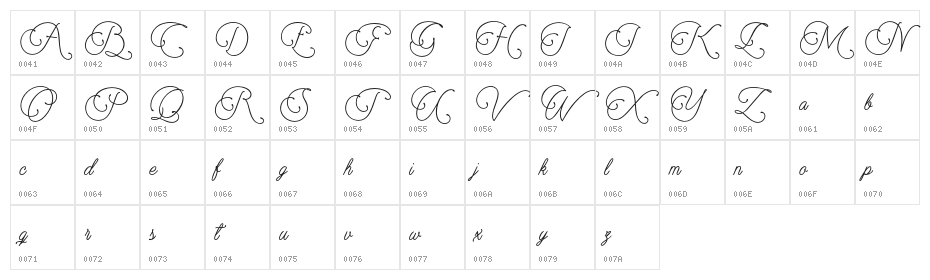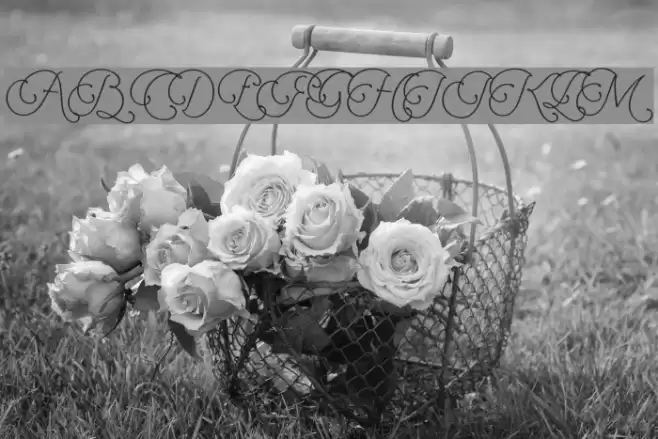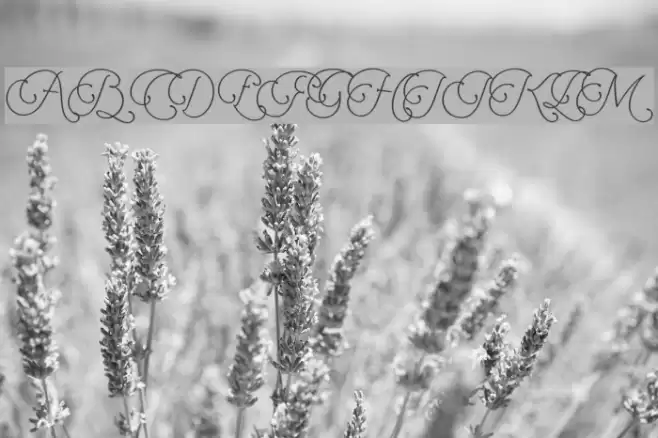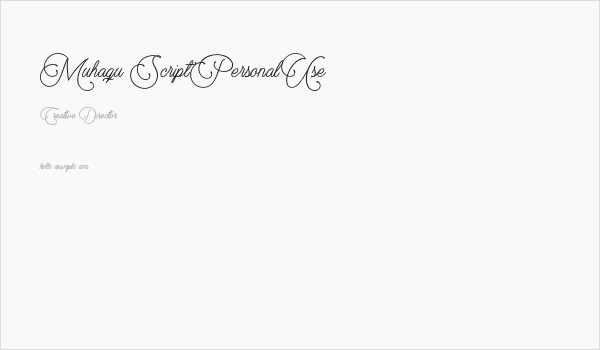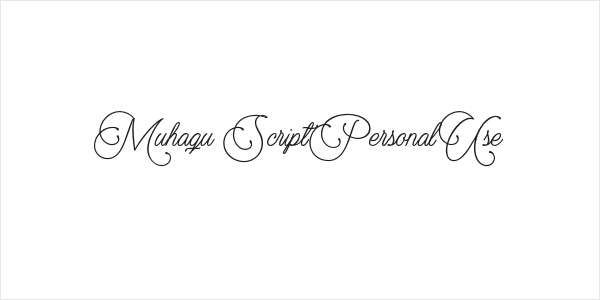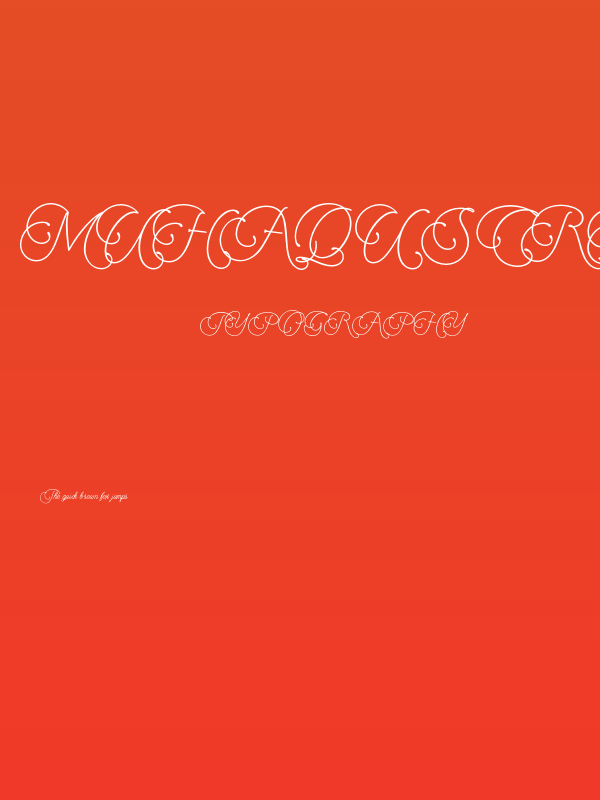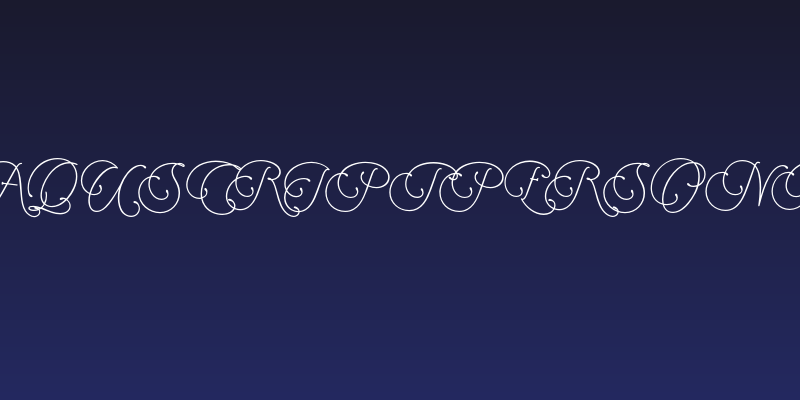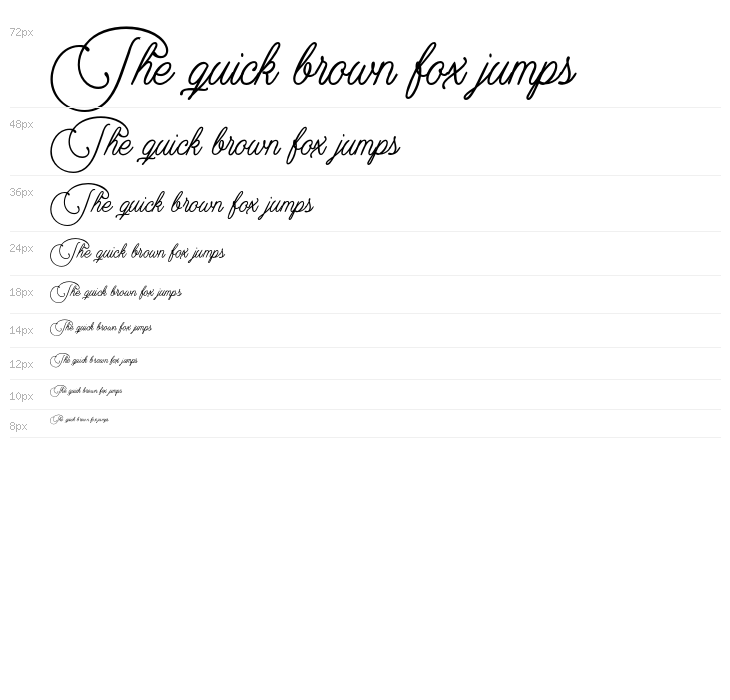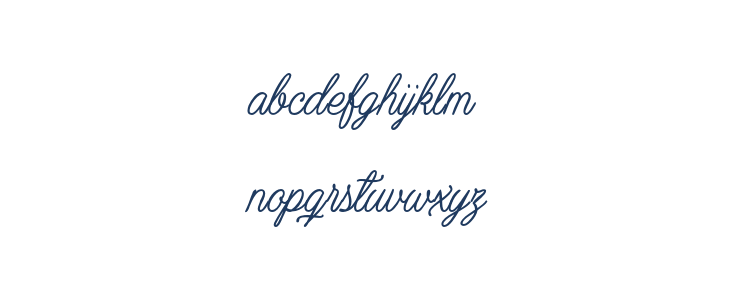
Muhaqu-ScriptPersonalUse Font
Muhaqu-ScriptPersonalUse Description
This elegant script font features a sophisticated and flowing design, characterized by its intricate loops and swirls. The uppercase letters are particularly ornate, with each character exhibiting a unique flourish that adds a touch of luxury and refinement. The lowercase letters maintain a consistent flow, offering a smooth and connected appearance that enhances readability while retaining the decorative style. The font's overall aesthetic is reminiscent of classic calligraphy, making it suitable for projects that require a touch of elegance and tradition. Its delicate lines and graceful curves make it ideal for formal invitations, branding, and decorative purposes.
| Proposed Projects | Ideal for wedding invitations, luxury branding, decorative headings, and formal event materials. |